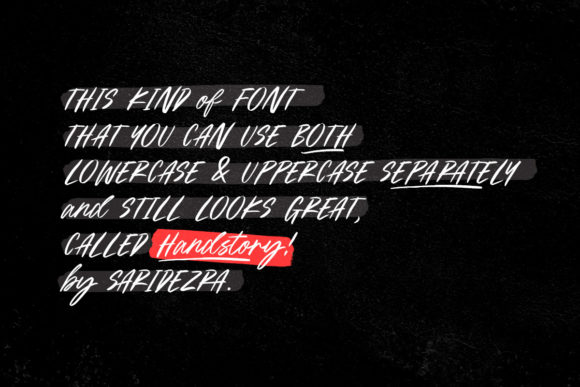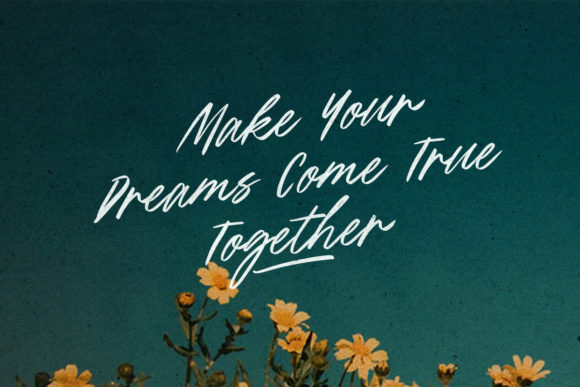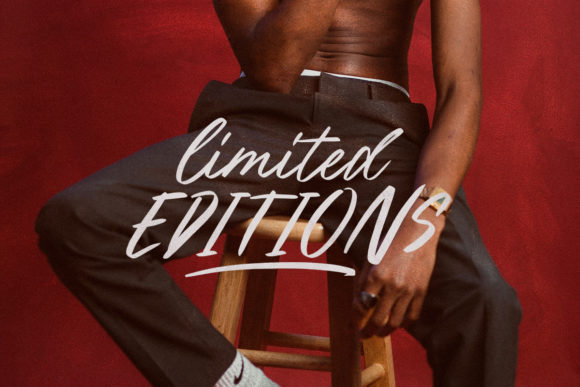
Introduction to Handstory Font
Have you ever found yourself stuck in a creative rut, searching for that perfect font to bring your design project to life? I know I have. And then, it happens – you stumble upon a hidden gem that changes everything. For me, that gem was the Handstory Font, a beautiful handwritten brush script that’s as versatile as it is stunning.
What I love about the Handstory Font is its ability to elevate any design, whether it’s a logotype, branding, or a simple quote. Its unique, handcrafted feel adds a touch of warmth and personality to any creative project, making it a valuable resource for designers.
Key Features of Handstory Font
- High-quality, hand-drawn design perfect for creative projects.
- Unique characteristics: Unique brushstrokes and subtle imperfections give the font a personal, handcrafted feel.
Honest Review: Handstory Font
The Handstory Font has a unique, handwritten feel that’s perfect for adding a personal touch to my designs. The transparent background makes it easy to place on top of images or other design elements, which is a huge plus. The font is also incredibly versatile, suitable for a wide range of creative projects, from digital invitations to social media graphics.
- Unique, handwritten style ✨
- Transparent background ✨
- High-quality design ✨
- Some characters may not be as smooth as others ⚠️
- Not as extensive character set as other fonts ⚠️
Overall, I’m thoroughly impressed with the Handstory Font. It’s a high-quality design resource that’s perfect for adding a personal touch to my creative projects. If you’re looking for a unique font with a handwritten feel, I highly recommend giving it a try.
When using the Handstory Font, consider the following tips: use it sparingly to add emphasis, experiment with different font sizes and colors to create visual interest, and pair it with other design elements to create a cohesive look. Common use cases for the Handstory Font include logo design, branding materials, and creative project titles.